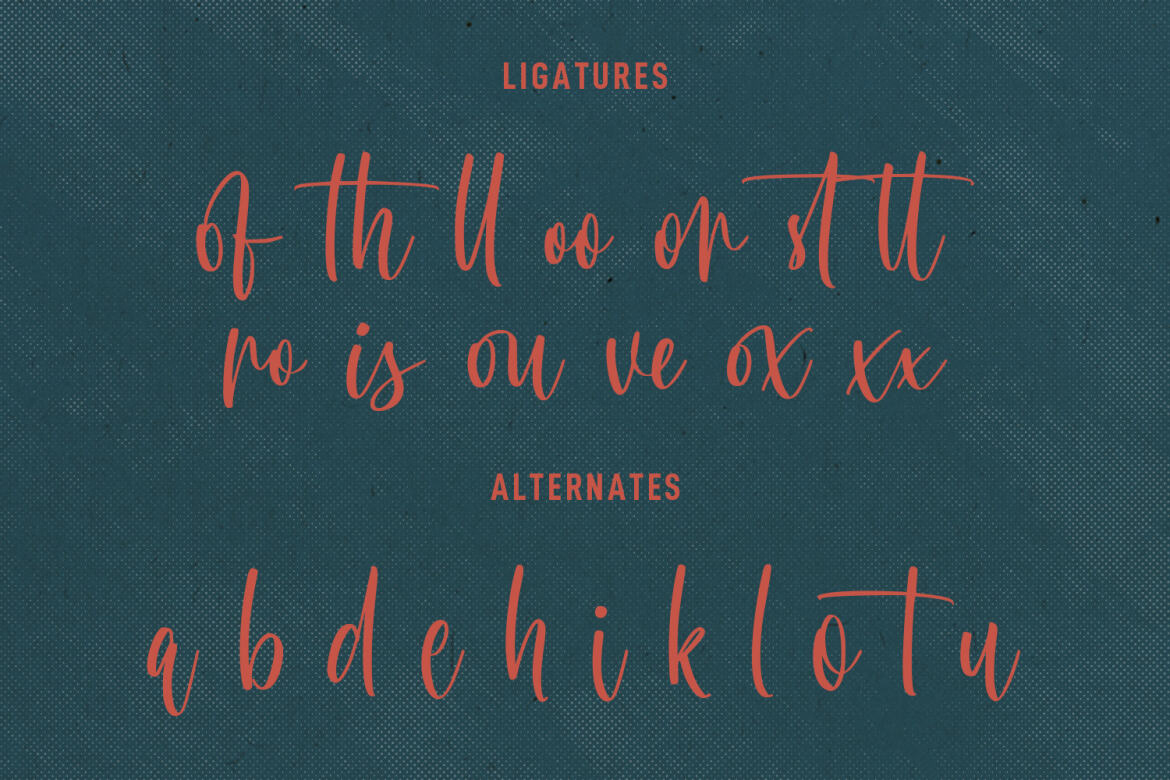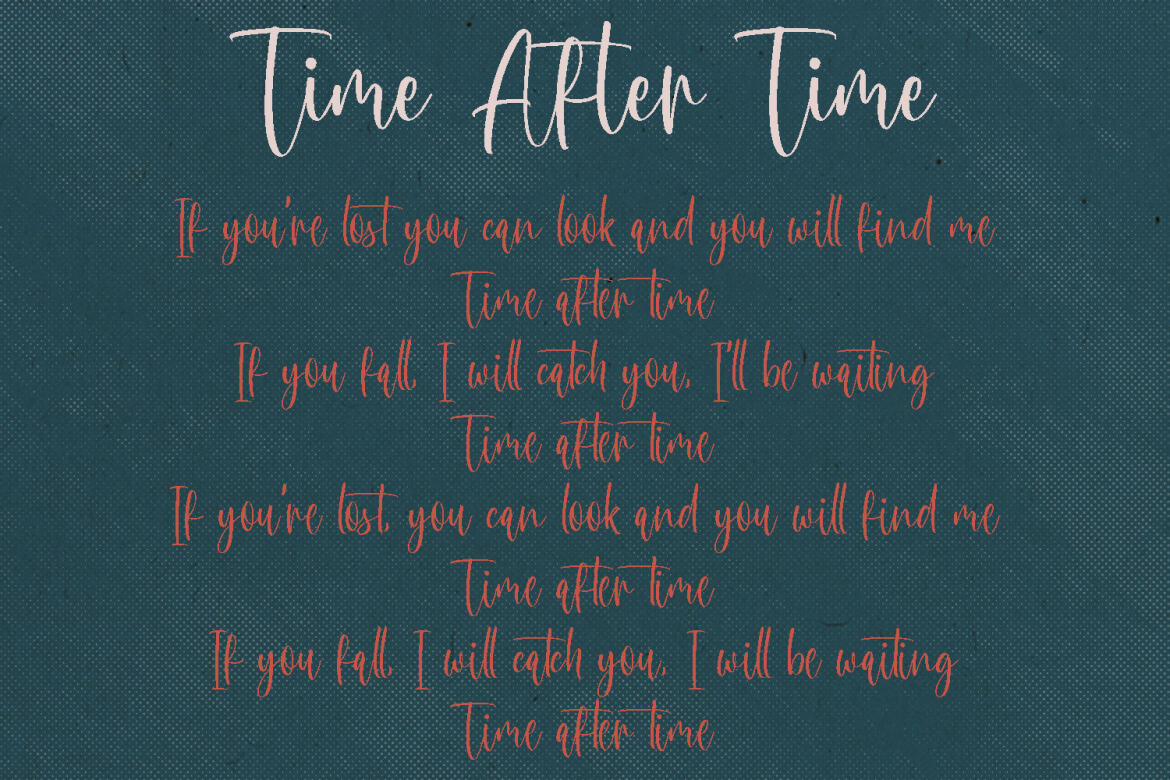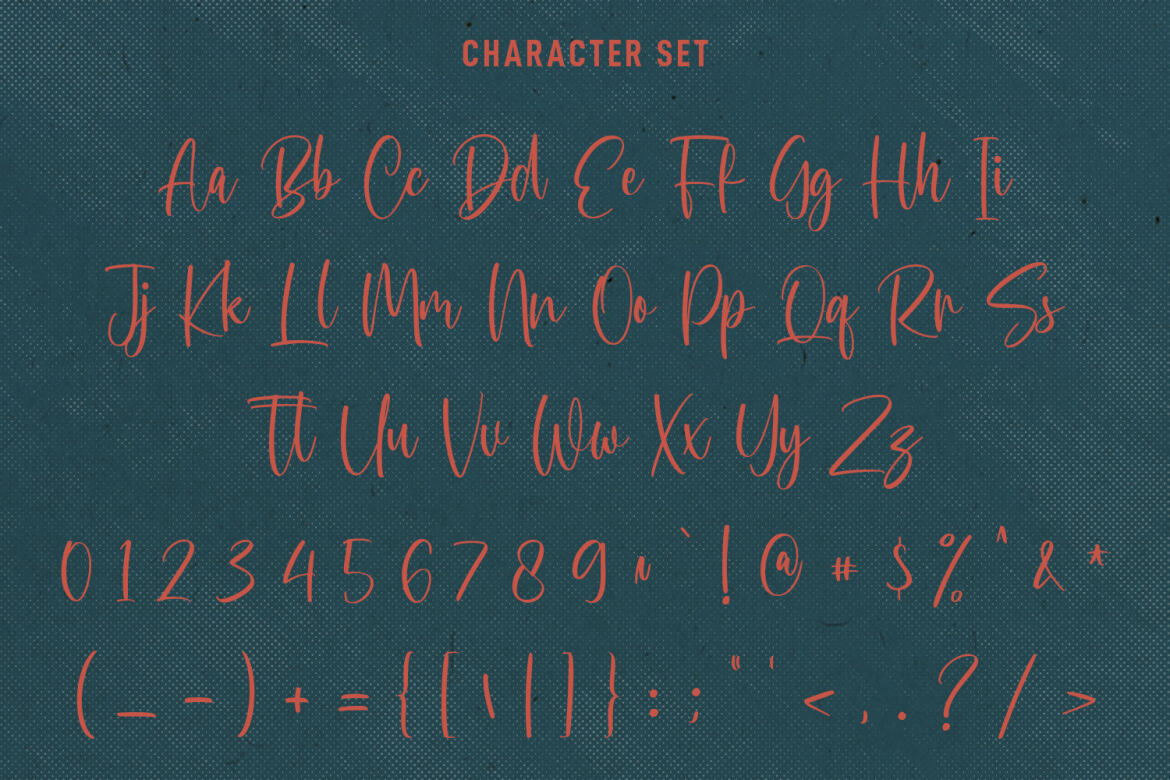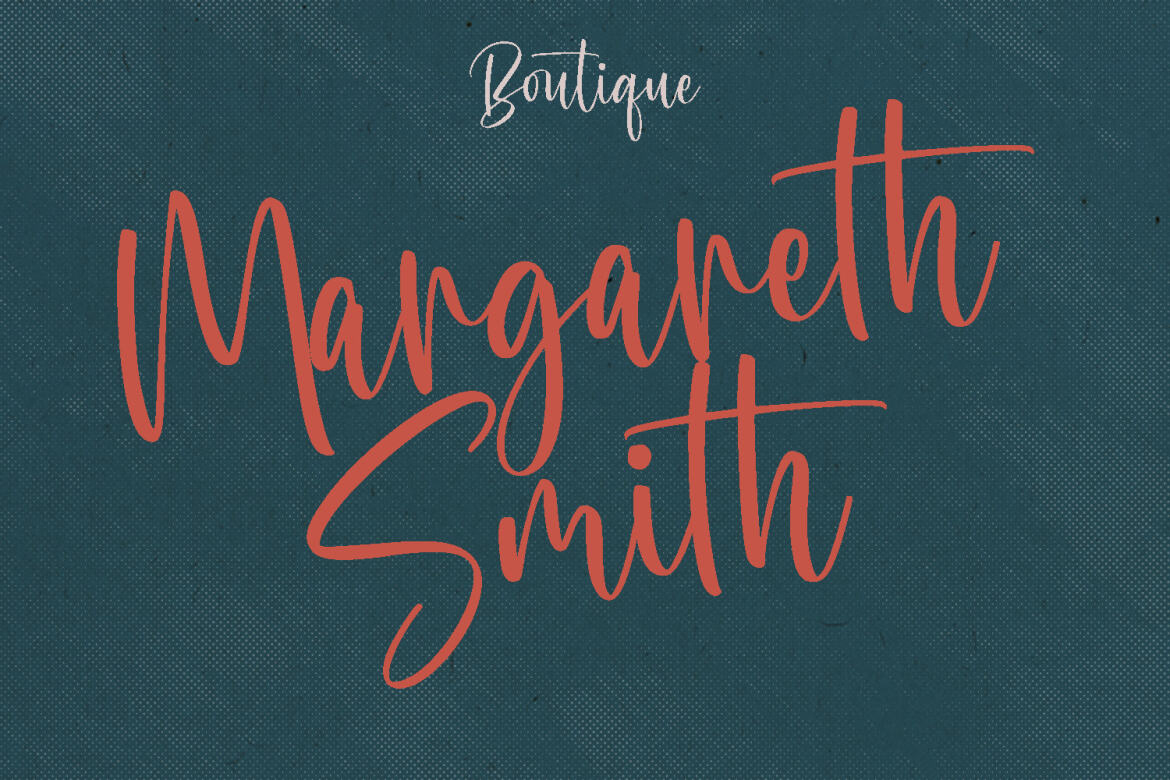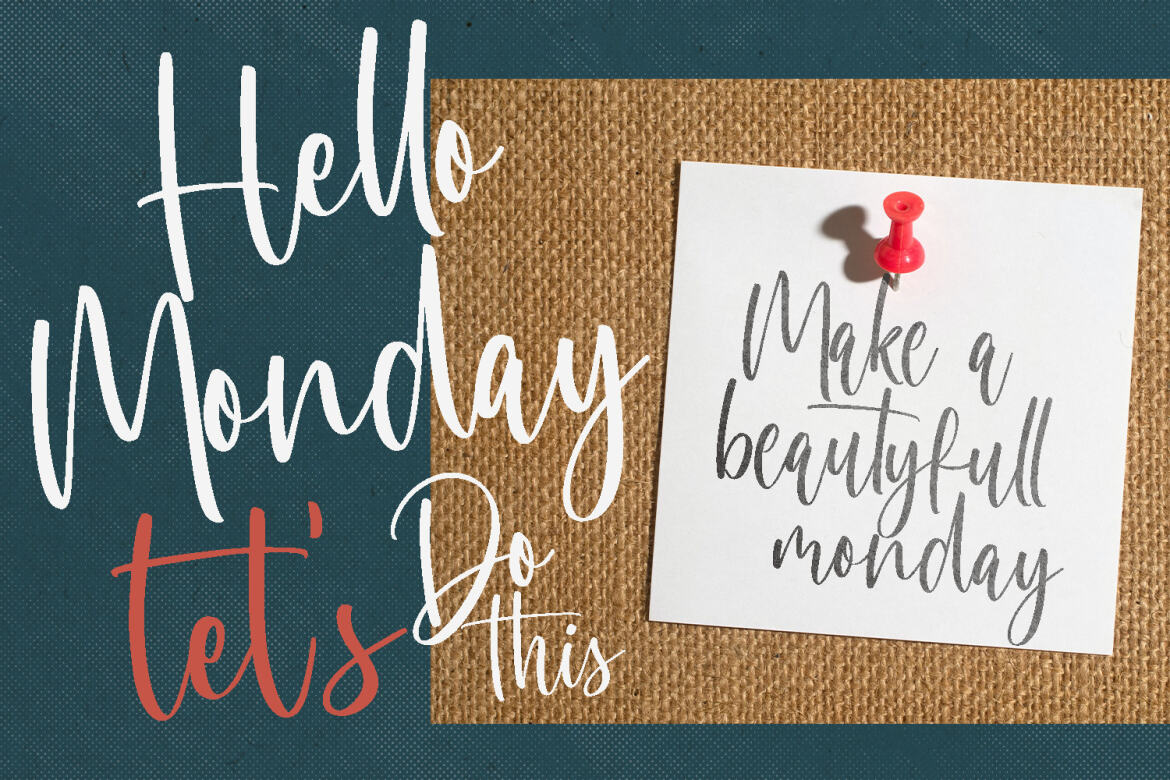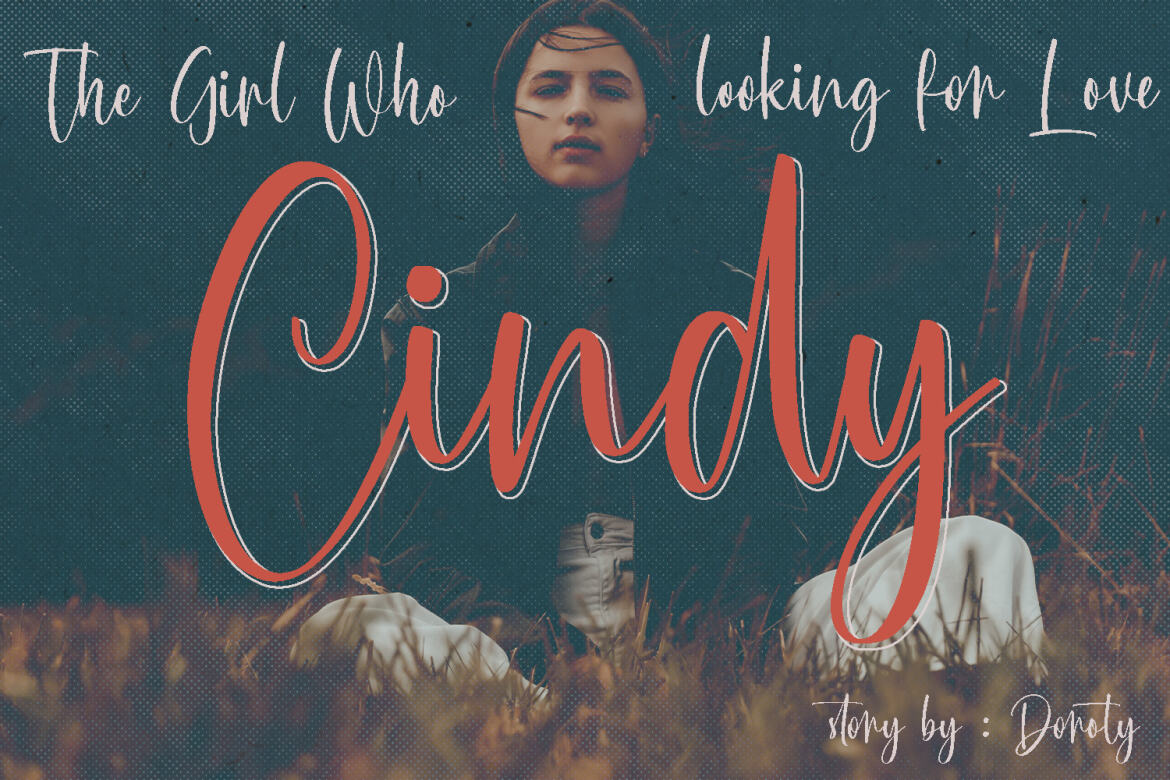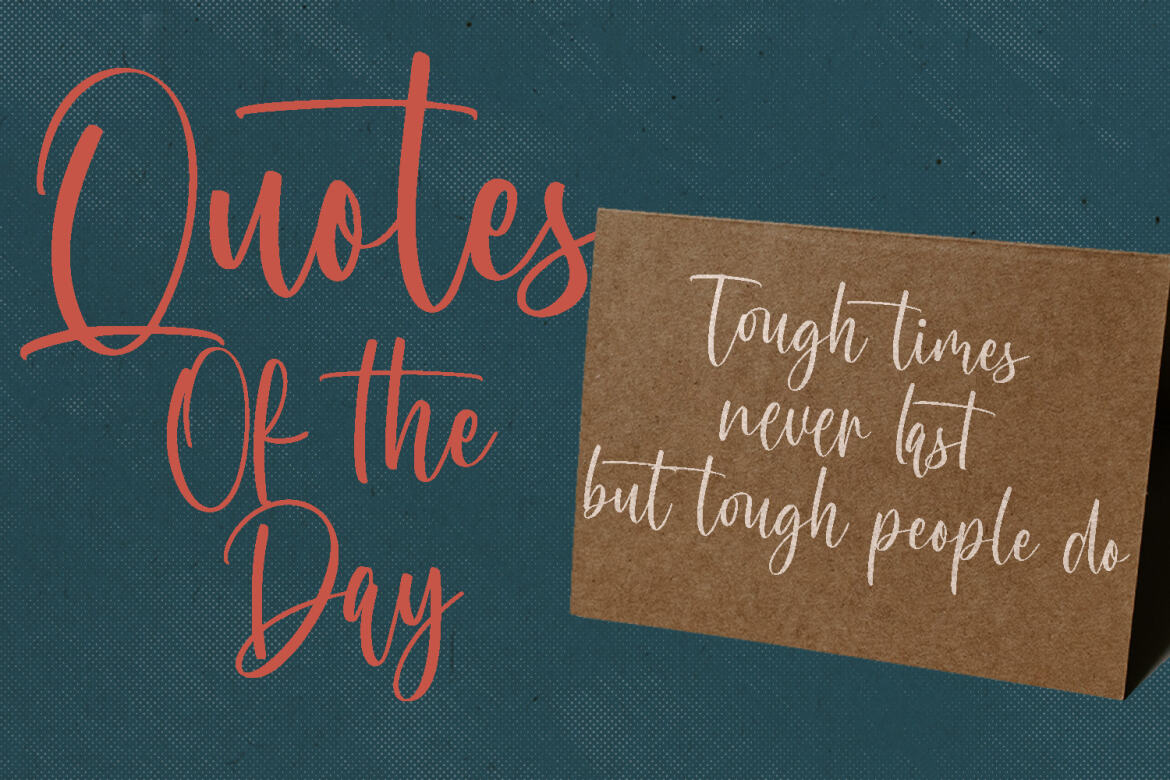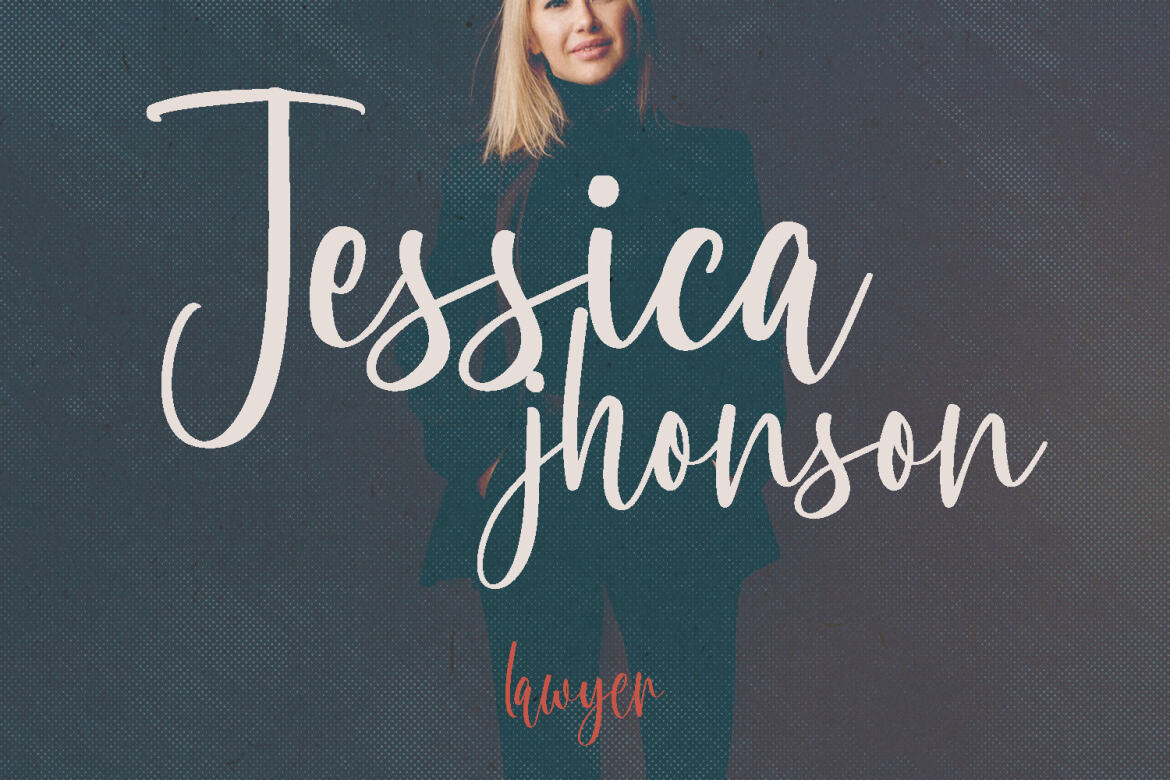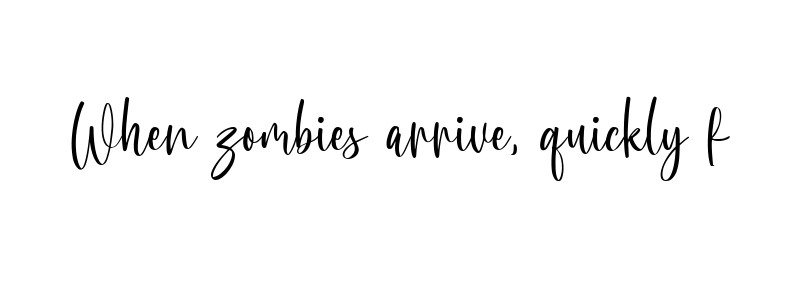
Bleachys FREE Script Font
Bleachys
Bleachys is a modern casual script font. With high contrast stroke, fun character with a bit of ligatures and alternates. To give you an extra creative work. Bleachys font support multilingual more than 100+ language. This font is good for logo design, Social media, Movie Titles, Books Titles, a short text even a long text letter and good for your secondary text font with sans or serif. Make a stunning work with Bleachys font.